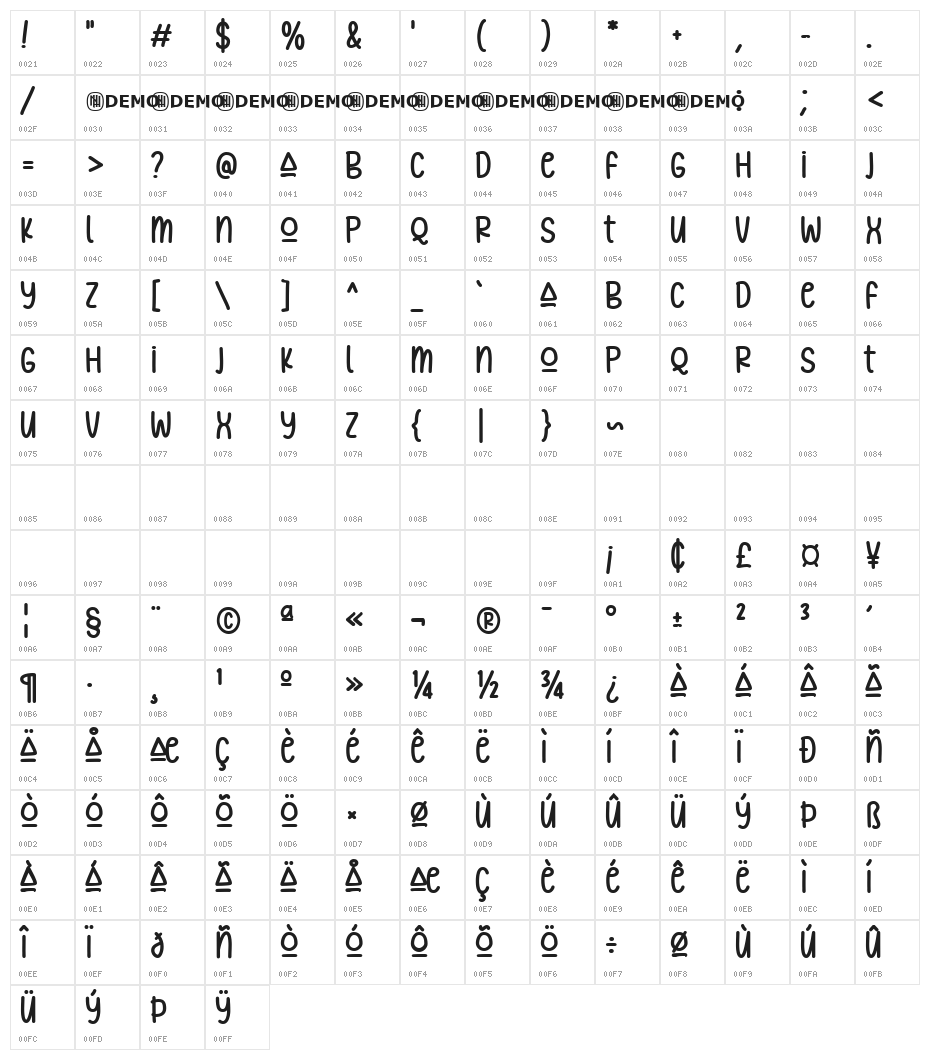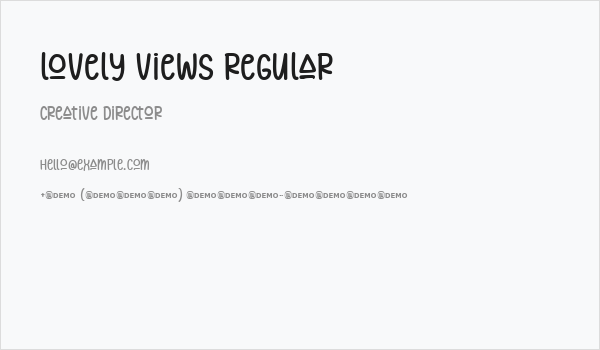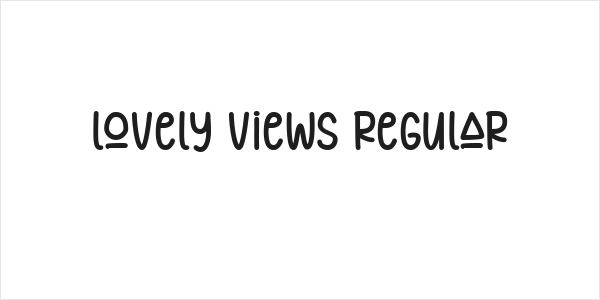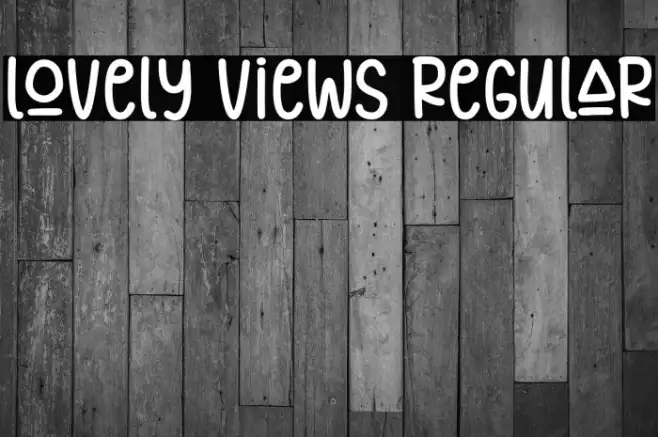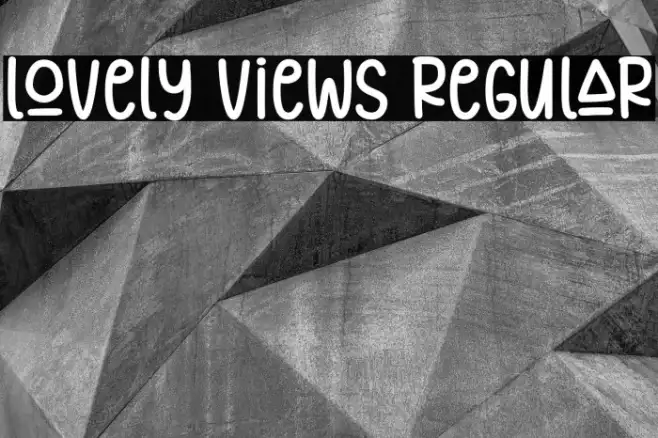
Lovely Views Regular Font
Lovely Views Regular Description
This font features a playful and whimsical design with rounded, bold characters. The letters have a hand-drawn quality, giving them a friendly and approachable appearance. The uppercase and lowercase letters maintain a consistent style, with smooth curves and a slightly irregular baseline that adds to the casual feel. The numbers and special characters are equally expressive, making this font suitable for creative and informal projects. Its unique style is perfect for capturing attention and conveying a sense of fun and creativity.
| Use Case | Headlines, Logos, Social media graphics |
| Proposed Projects | Ideal for children's books, greeting cards, playful branding, and social media graphics. |